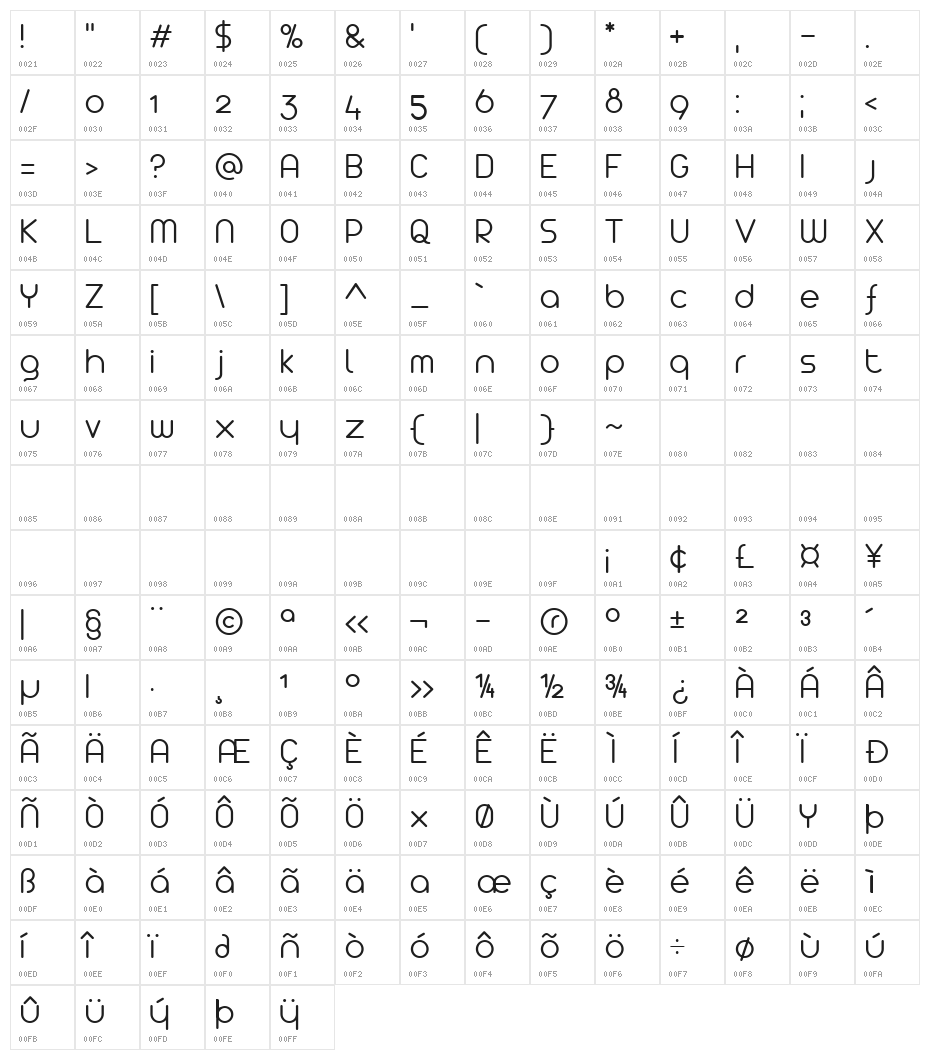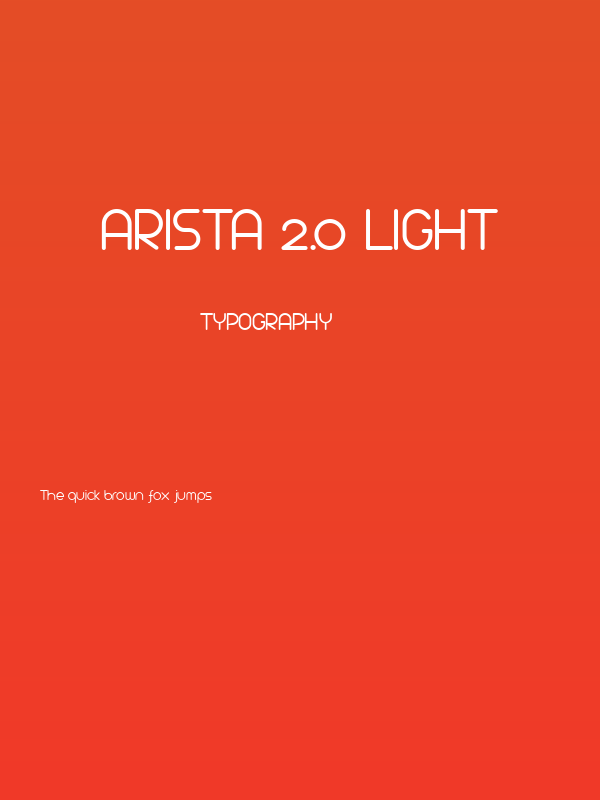
Arista 2.0 Light Font
Arista 2.0 Light Description
This font features a clean, rounded sans-serif style with a modern and minimalist aesthetic. The characters are evenly spaced and exhibit a consistent stroke width, contributing to a harmonious and balanced appearance. The uppercase and lowercase letters maintain a uniform height, enhancing readability. The numerals and special characters are designed with the same rounded edges, creating a cohesive look across all elements. This font's simplicity and clarity make it versatile for various design applications.
| Proposed Projects | Ideal for digital interfaces, branding, advertising, and packaging design. |